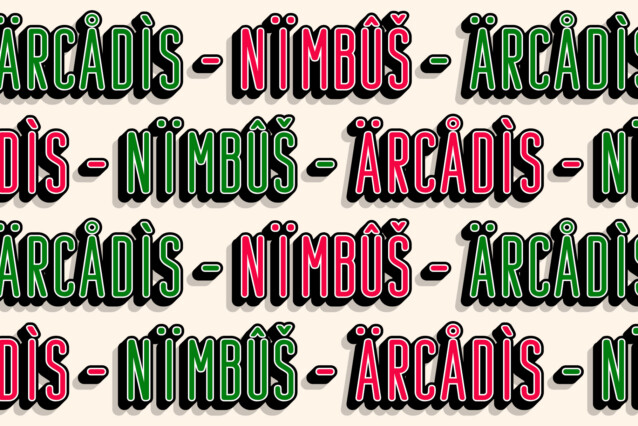
Bondie Rounded 3D Font
Bondie Rounded 3D Font: Sleek Modernity with Dynamic Depth
Condensed Sans-Serif with Rounded Shapes
Bondie Rounded 3D is a modern sans-serif font featuring condensed, rounded shapes that create a sleek and contemporary look. Its design is both clean and approachable, making it ideal for tech branding and innovative packaging.